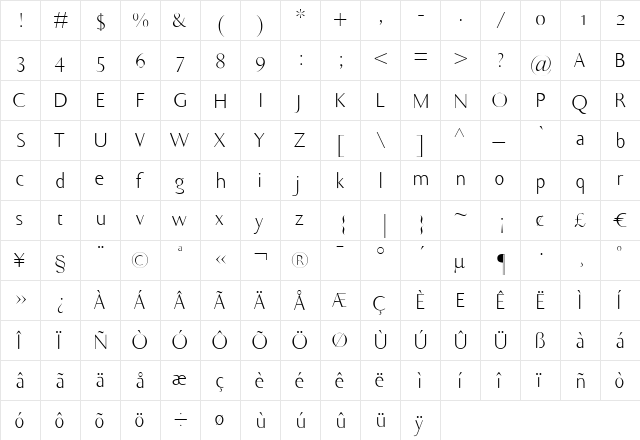
Ela Sans XLight Regular
Design Context for Ela Sans XLight Typeface
Ela Sans XLight takes a measured approach to typography — its balanced proportions and neutral character make it a reliable workhorse for both digital and print work. Its slender proportions lend an understated elegance to any composition.